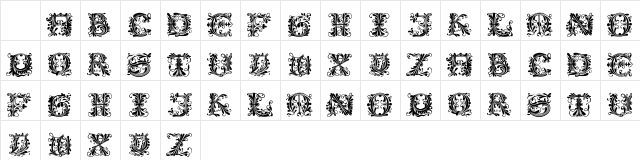
101! Flourish Display CapZ Regular
Design Context for 101! Flourish Display CapZ Typeface
101! Flourish Display CapZ brings ornamental detail and strong personality to headlines and identities, where visual impact matters more than quiet functionality.
Font Pairing: Pair with a clean neutral sans-serif for body copy to let 101! Flourish Display CapZ's character lead without overwhelming the composition.
Pro Tip: Use 101! Flourish Display CapZ exclusively at display sizes — it was designed to be seen, not read at length. Let a neutral companion handle body copy.